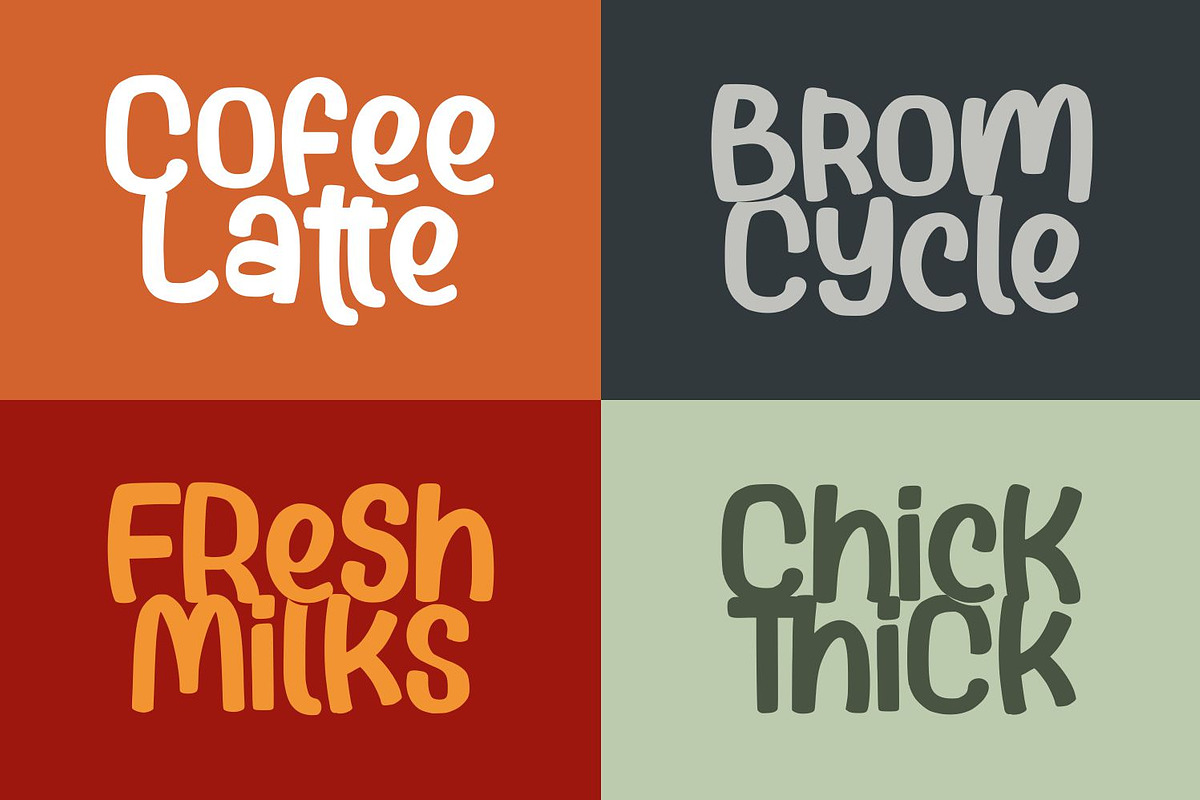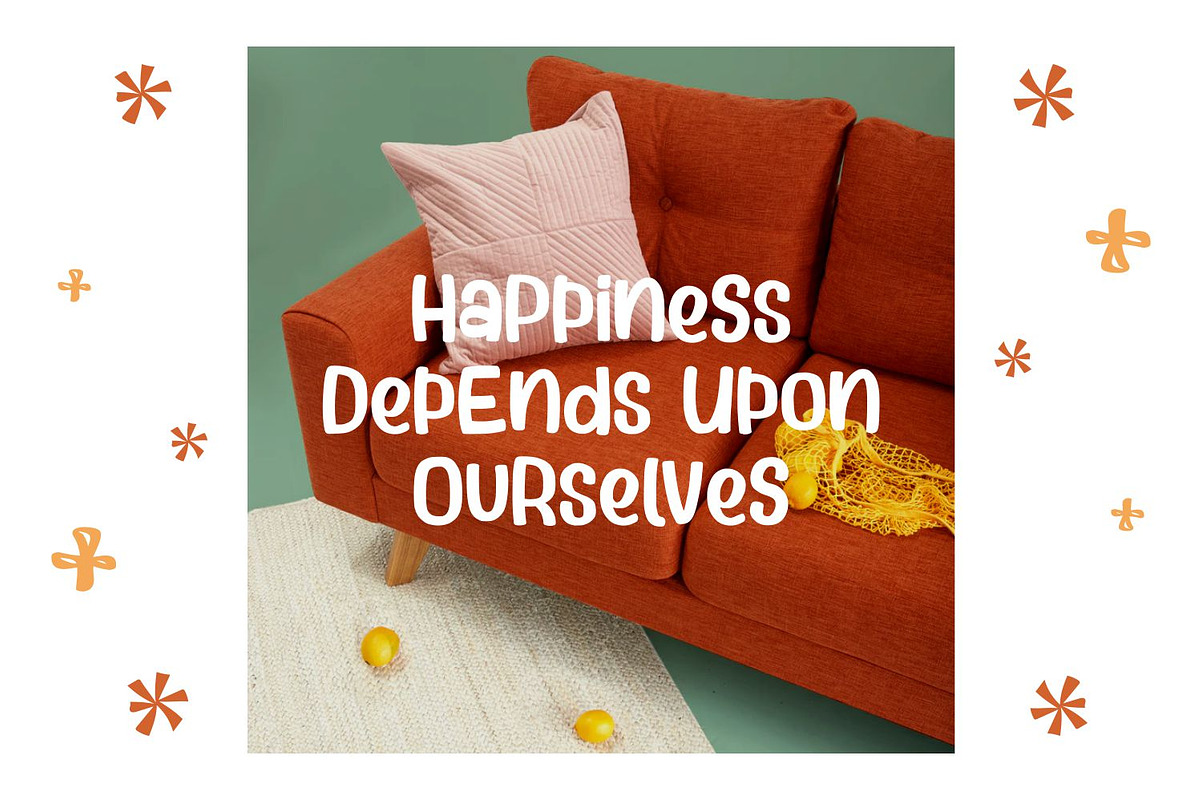
Hello Brownie
Welcome to: Hello Brownie - a Kids Display Font
It's smooth, it's funny, it's fun, and it's very nice: it's Hello Brownie - a Kids Display Font Mixed fonts with many possible combinations.
Hello Brownie is the perfect font for all your fun designs. The main font file is equipped with ordinary characters (A-Z, a-z, 0-9, ligature), as well as more than 300+ glyphs to support most Latin-based languages.
Everything is made with the same brush, and everything is the same size as Hello Brownie, so you can be sure they will work well together! It is suitable for you to use in making t-shirt design, quote, label, packaging, logo type, or long writing. Because we have compiled kerning and matrices that are tailored to your needs.